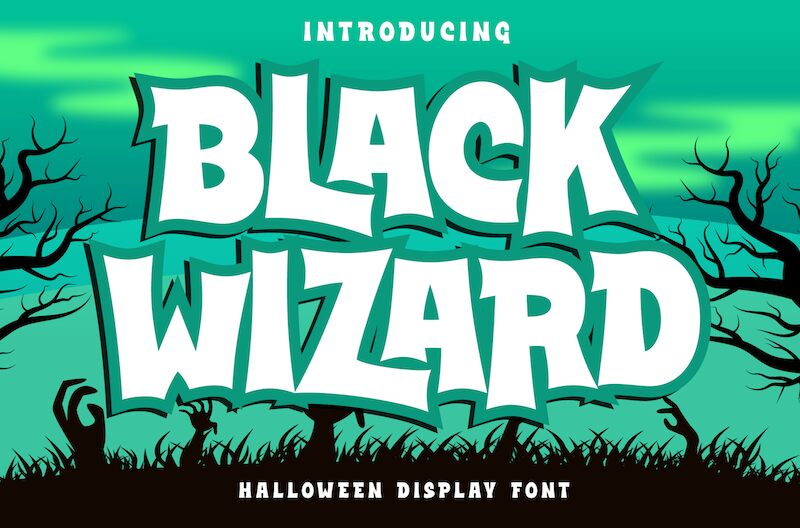
Black Wizard Symbols, part of the Black Wizard font family designed by Mans Greback, is a terrifyingly delightful dingbat font.
With its bold and funky sans-serif style, it exudes a playful character that perfectly complements horror and Halloween-themed designs. Whether you're creating spooky invitations, eerie posters, or chilling social media graphics, this font's wonky appearance adds an extra element of spookiness to your work.
No matter the width you choose - from thin to bold - Black Wizard Symbols will bring a touch of macabre charm to your projects.
Use the character anywhere in a word to make a Halloween symbol.
Example: ScareCrow.